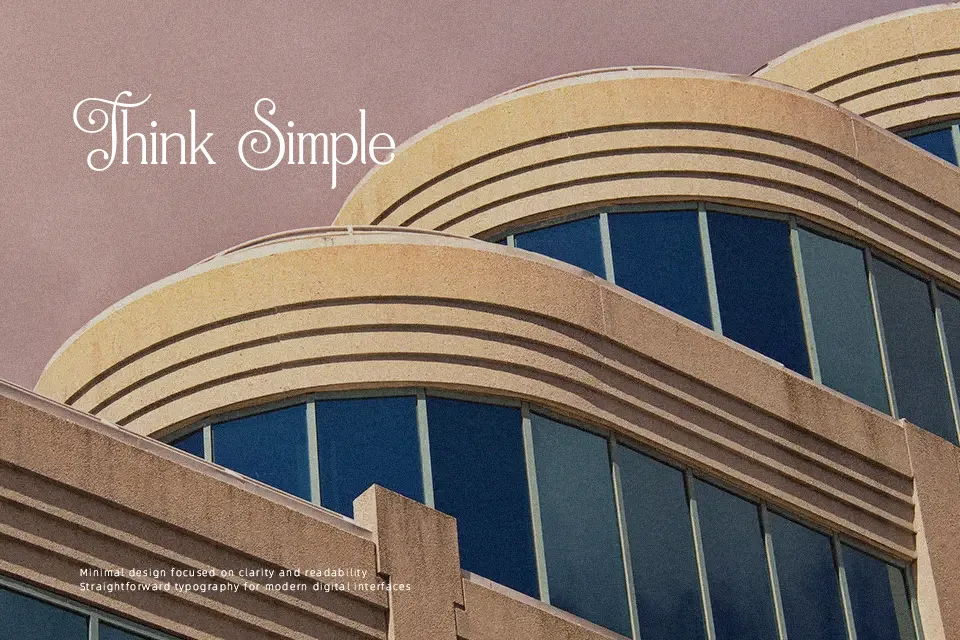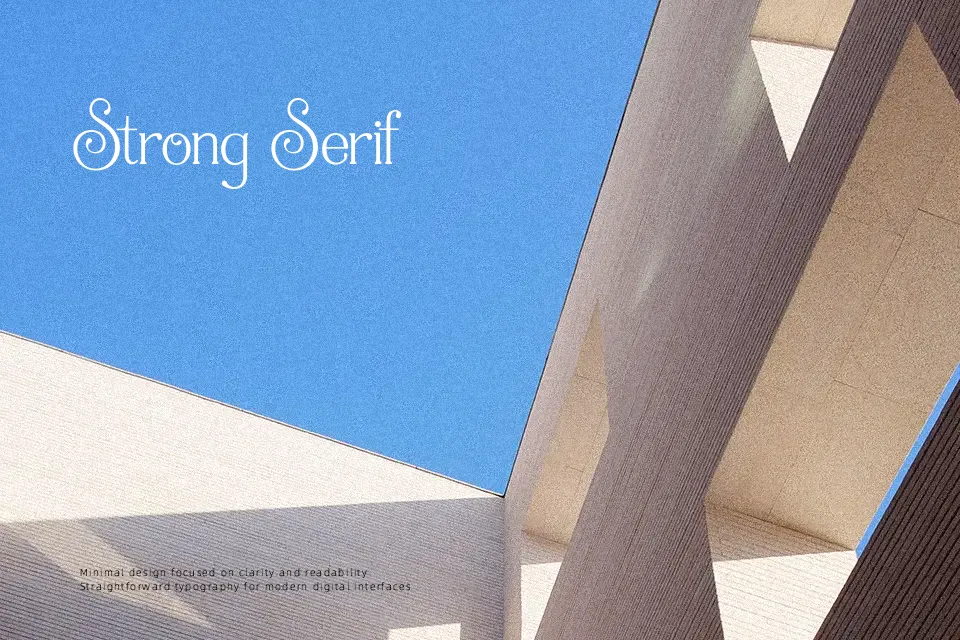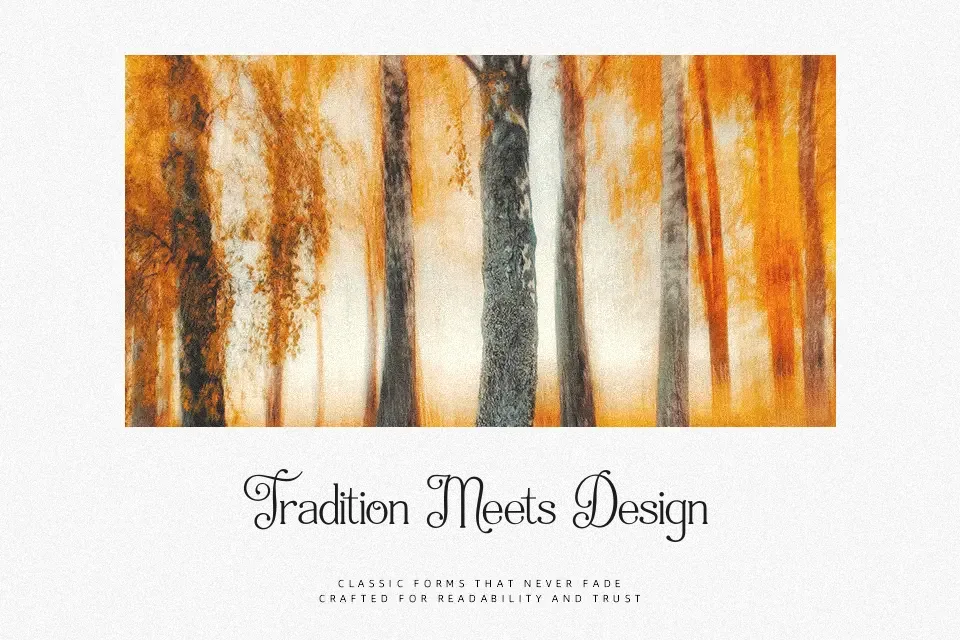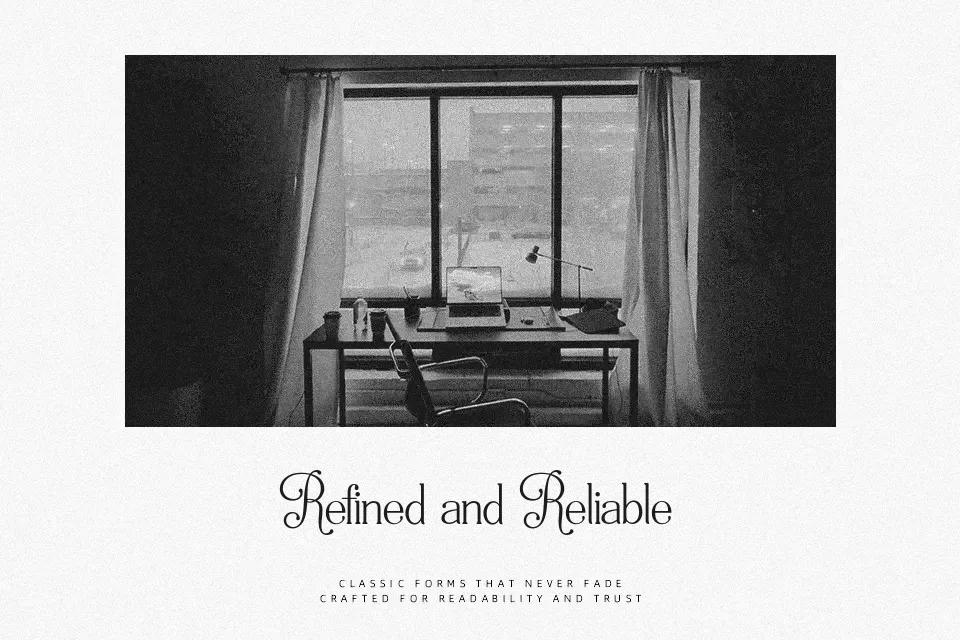
Queensby Font
Designed by Ferry Septian
Queensby Font reveals a sophisticated structure defined by dramatic thin-to-thick stroke variations and expressive ball terminals. The high-contrast serif letterforms feature elegant uppercase swirls and a light, airy visual rhythm. With balanced proportions and open spacing, the typography maintains excellent clarity when showcased in prominent display settings. The refined curves ensure a striking aesthetic for premium design projects. However, the intricate details and extreme contrast become less effective at smaller sizes, significantly reducing legibility during continuous reading. This elegant design performs best in short bursts of text where its distinctive retro characteristics can be fully appreciated.
luxury product packaging
website hero headlines
wedding invitation cards
high-end cosmetic branding
technical instruction manuals
Perfect for branding, headline, and packaging, with a elegant and decorative style.